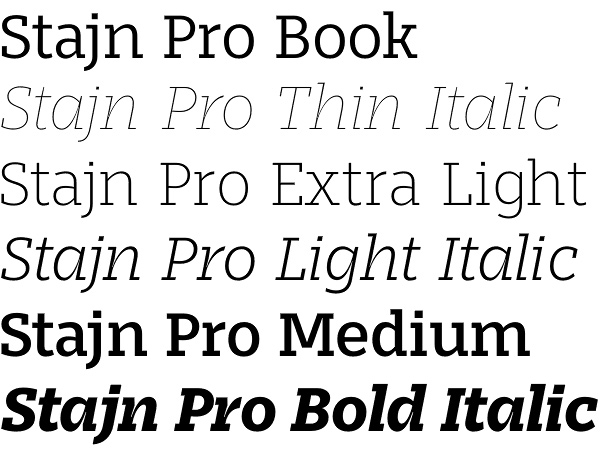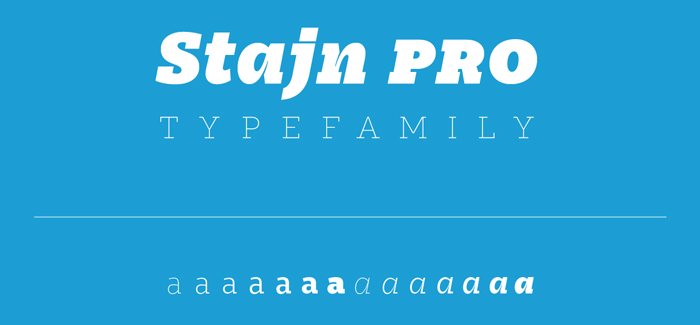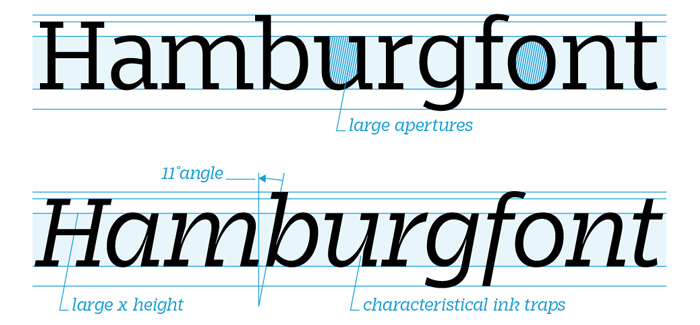
Stajn Pro font
Stajn Pro font is a hot new slab serif font family designed by Anže Veršnik / stajn-type. From the very first glance it is quite evident that this font is developed with knowledge, attention and precision. Stajn Pro has 7 weights from thin to extra bold, each of them designed with true italics sold as individual fonts. Anže Veršnik must have spent really lots of time on this font family and especially on its readability. Stajn Pro features custom ink traps, increased x-height and wide apertures – these are very useful hints that dramatically improve your font performance when printed in small sizes and in poor conditions, or when used on screen with low resolution. Stajn Pro font has beautiful multi-weight italics enhanced with even more personal touch than the regulars. If you have open type aware software, then you’ll be able to feel the full potential of this font family exploring numerals, alternates, ligatures and multilingual diacritics.
Stajn pro is indisputable leader in editorial design, typographic posters, stationary, logos, web design and motion graphic.